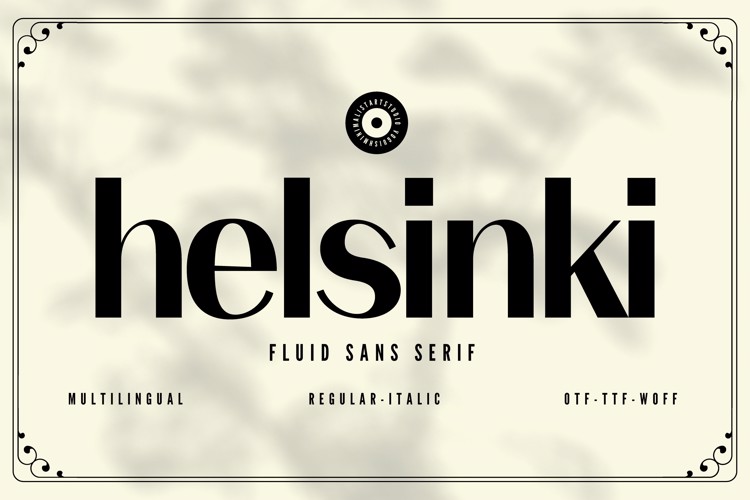
Helsinki Font
🎨 Font Name: Helsinki by Minimalist Art Studio
🎨 Font Description: Helsinki is a fluid sans serif with elegant curves and multilingual versatility, perfect for modern branding and editorial design.
✔ Complete Latin set + multilingual diacritics
✔ Alternates, stylistic sets & ligatures
✔ Numbers, small caps, and extended punctuation
✔ Bonus italics and family styles